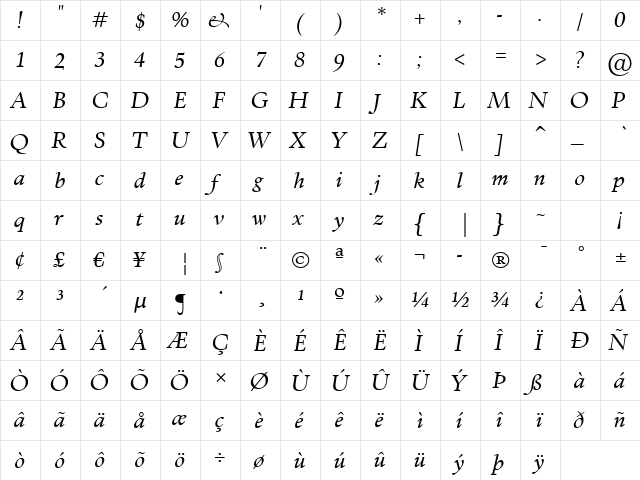
Kennedy GD Book Italic
Design Context for Kennedy GD Typeface
Kennedy GD offers clean, dependable letterforms without strong stylistic allegiance, making it a practical choice for designers who need flexibility. The dynamic lean of this cut emphasises speed and emphasis in any layout.
Pro Tip: Use Kennedy GD for emphasis, pull quotes, and subheadings where its slanted energy can add rhythm to the layout.